Step into a world of nostalgia and elegance with our selected 16 vintage fonts, all available in Canva. These classic typefaces aren’t just fonts – they’re a journey back through history, capturing the essence of different eras. With a simple click, you can transport your audience back in time, evoking feelings of nostalgia and timeless sophistication. Discover these vintage gems today and elevate your design aesthetics with a sense of enduring style. These fonts offer a range of vintage styles, from elegant scripts to bold display fonts, perfect for adding a nostalgic touch to your designs on Canva.
1. Anaktoria
Anaktoria is a serif font with a classical touch, reminiscent of ancient Greek inscriptions. Its sharp serifs and elegant proportions give it a timeless, scholarly feel.
Why Vintage: The font’s design is inspired by historical stone carvings, making it perfect for projects that aim to evoke a sense of antiquity and timelessness.
2. Brixton Outline
Brixton Outline is a decorative version of the Brixton font family, featuring outlined characters that give it a unique, retro appearance.
Why Vintage: Its outline effect and structure harken back to the early 20th century advertising and sign painting, ideal for vintage-themed designs that require a standout, graphic quality.
3. Brixton Sans
Overview: Brixton Sans is a clean, simple sans-serif font. It has a modern feel but with a nod to the past, thanks to its subtle vintage undertones.
Why Vintage: The simplicity and functionality of Brixton Sans are reminiscent of mid-20th-century sans-serif types, making it versatile for retro designs that need a touch of modernity.
4. Cinzel Decorative
Cinzel Decorative is a more ornamented variant of Cinzel, inspired by classical Roman style but with a contemporary twist.
Why Vintage: Its decorative elements and Roman inscription influence make it a timeless choice for designs that require an ancient yet elegant font.
5. Courier Prime
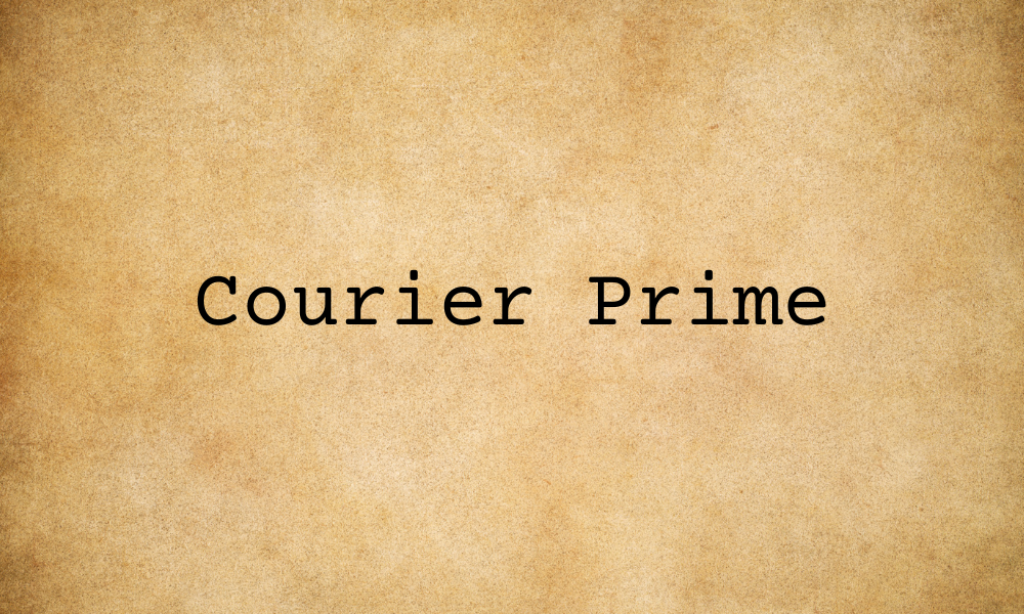
An optimized version of the classic Courier font, Courier Prime offers improved readability while maintaining the vintage typewriter aesthetic.
Why Vintage: Its association with mid-20th-century typewriting gives it an authentically vintage feel, perfect for designs that aim to capture the essence of that era.
6. Della Respira
Della Respira is a serif font with flowing lines and elegant curves, reminiscent of Renaissance calligraphy.
Why Vintage: Its refined features and historical roots make it ideal for projects that require a sophisticated, classical touch.
7. Furgatorio
Furgatorio is a decorative font with unique, intricate details that give it a distinctly vintage feel.
Why Vintage: The ornamental design and old-world charm of Furgatorio make it perfect for projects that need a decorative, historical font with a touch of mystery.
8. Glacial Indifference
A modern and minimalist sans-serif font, Glacial Indifference has a timeless design that can adapt to various contexts.
Why Vintage: Its clean, neutral form is reminiscent of the mid-20th-century typography, offering a modern yet vintage feel suitable for contemporary designs with a retro influence.
9. Hatton
Hatton is a serif font that combines traditional structure with modern details, offering a balance between old and new.
Why Vintage: Its classic proportions and contemporary finish make it a versatile choice for designs that bridge the past and present.
10. Lancelot
Lancelot is a highly decorative font with a noble and medieval flair, reminiscent of historical European manuscripts.
Why Vintage: Its ornate design and historical inspiration make it perfect for projects that need a dramatic, old-world script.
11. Limelight
Inspired by the classic slab serif fonts of the 19th and early 20th centuries, Limelight has a bold, theatrical quality.
Why Vintage: Its strong presence and historical slab serif roots make it ideal for capturing the essence of vintage advertising and entertainment posters.
12. Lucien Schoenschrift
A calligraphic script font, Lucien Schoenschrift has elegant, flowing letters that mimic hand-written text from the early 20th century.
Why Vintage: Its cursive, ornamental style is perfect for adding a personal, historical touch to any design project.
13. Marcellus
Marcellus is a classic Roman-inspired serif font with clean lines and a timeless elegance.
Why Vintage: Its ancient Roman influence gives it a historical authenticity, ideal for projects that need a strong, classical font.
14. Niconne
Niconne is a lovely script font that mimics personal handwriting with a vintage flair, combining elegance and whimsy.
Why Vintage: Its informal, retro style is reminiscent of mid-20th-century handwriting, making it great for adding a personal, nostalgic touch.
15. Old Standard
Old Standard mimics the traditional typefaces used in classical literature and academic texts, with a clean and formal aesthetic.
Why Vintage: Its roots in the typestyles of the late 19th and early 20th centuries make it an excellent choice for projects that require a scholarly, vintage look.
16. Vintage Rotter
Vintage Rotter is a decorative font that embodies the ornate and elaborate designs of the past, with a heavy emphasis on vintage aesthetics.
Why Vintage: Its intricate details and old-fashioned charm make it a standout choice for designs that aim to capture the essence of bygone eras, particularly those of the Victorian period or earlier.